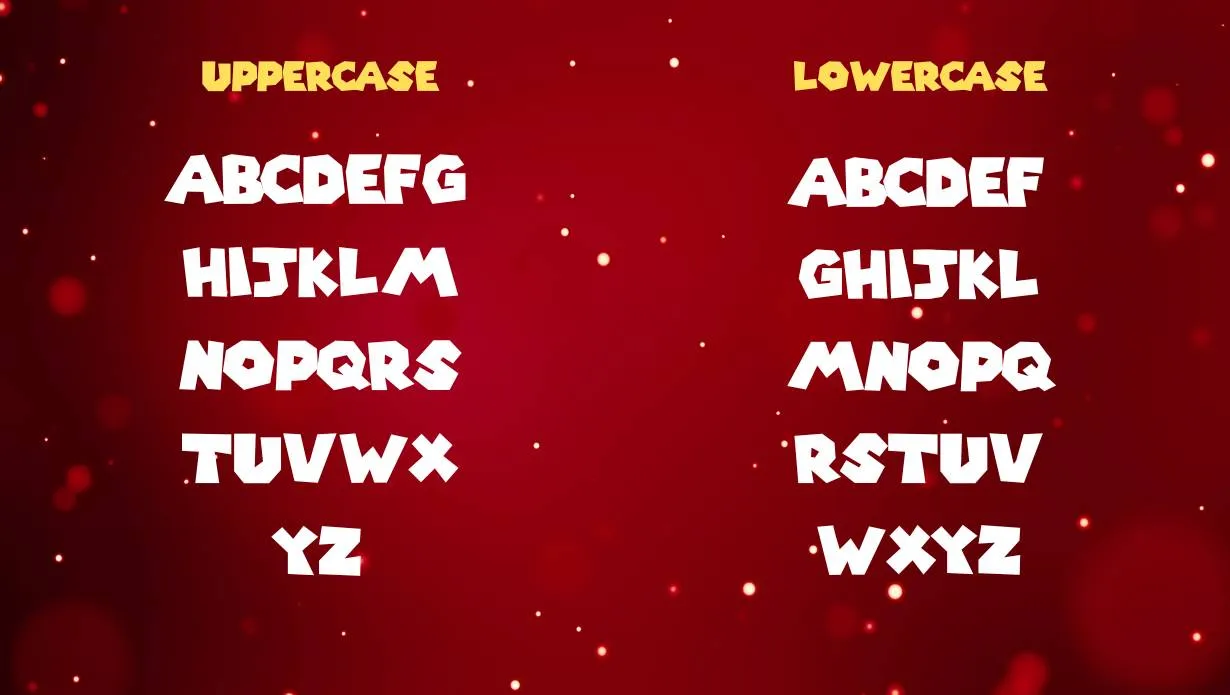
Super Mario 256 Font was created by a well-known typographer fsuarez913. It is named after a popular game of the early nineties Super Mario. This typeface belongs to the fancy font family.
There are 136 characters in this font including lowercase letters, punctuations, numerals, Uppercase letters, and special characters. This extensively used typeface can be paired with Raspoutine Font to skyrocket your project.
View of Super Mario 256 Font